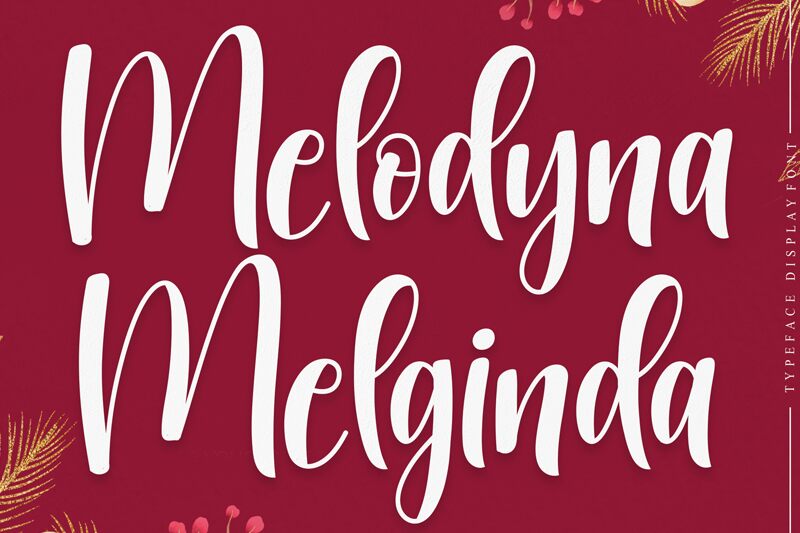
Melodyna Melginda
Melodyna Melginda, an enchanting creation by Scratchones, brings a touch of whimsy to your projects. With its semi-light weight and lovely handwritten style, this font adds a playful elegance to any design.
Perfect for wedding invitations, greeting cards, and feminine branding materials, Melodyna Melginda captures the essence of romance and grace. Its delicate strokes and flowing curves create a sense of warmth and intimacy that will captivate your audience.
Let this charming font be the melody that dances across your next creative endeavor.